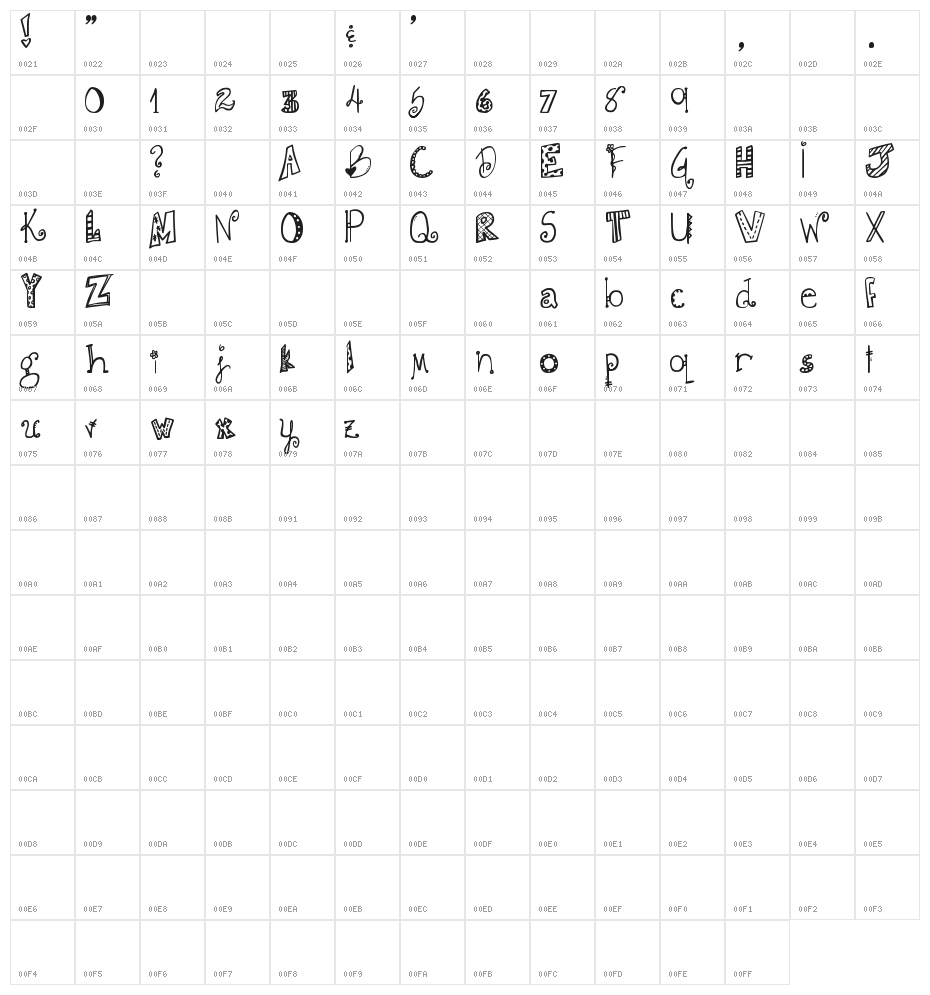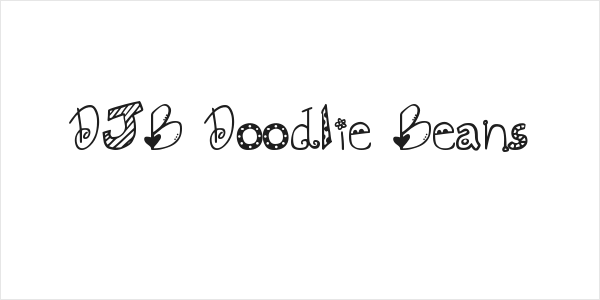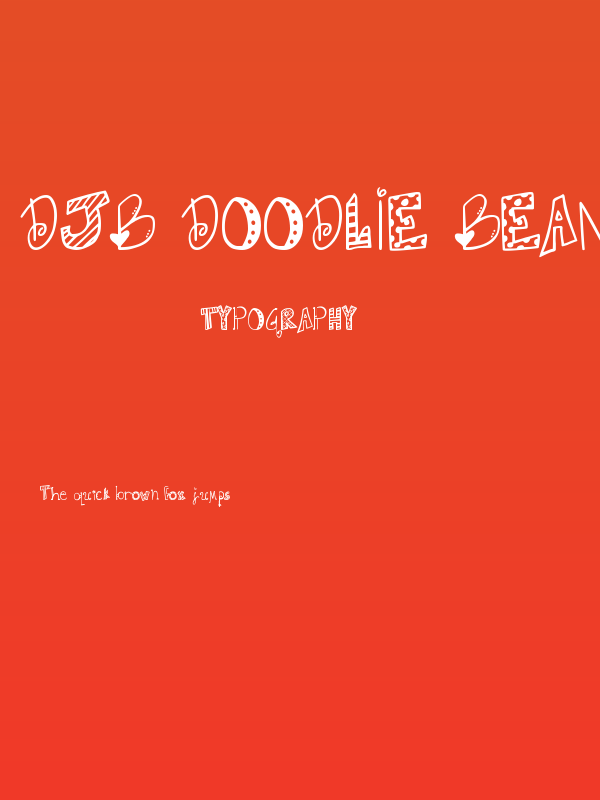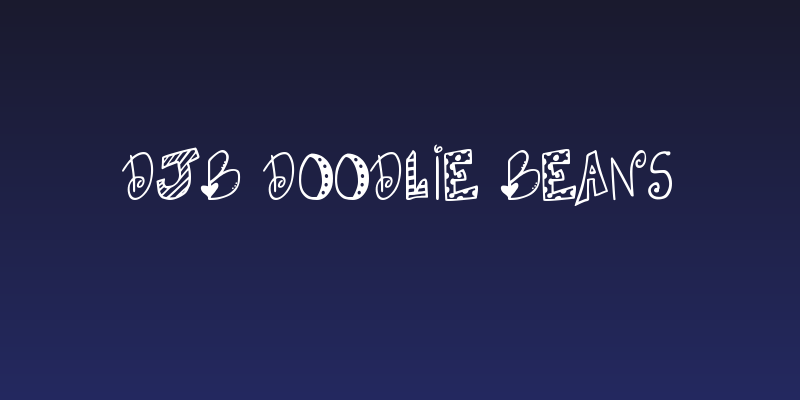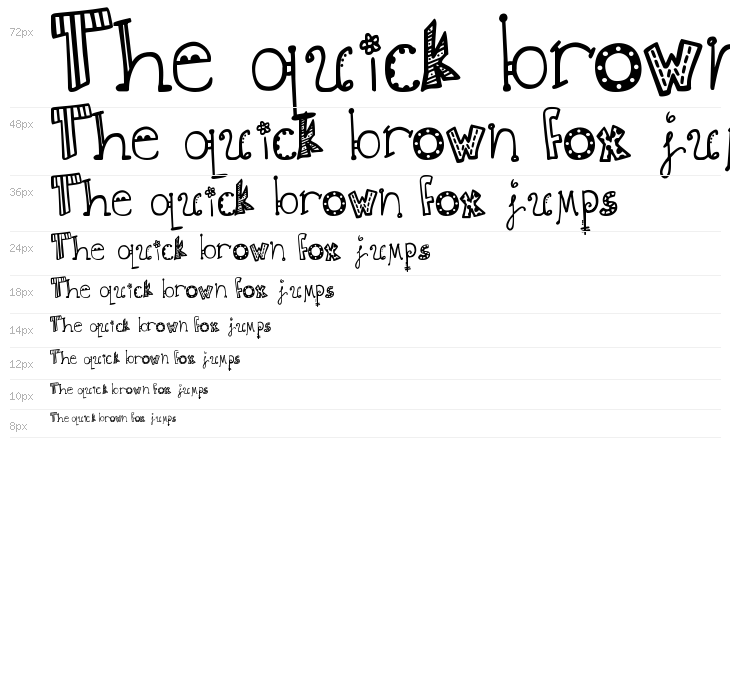
DJB Doodlie Beans Font
DJB Doodlie Beans Description
| Overall Style | Playful and Whimsical |
| Use Case | Headlines, Logos, Creative Projects |
| Proposed Projects | Ideal for children's books, playful invitations, greeting cards, and creative posters. |